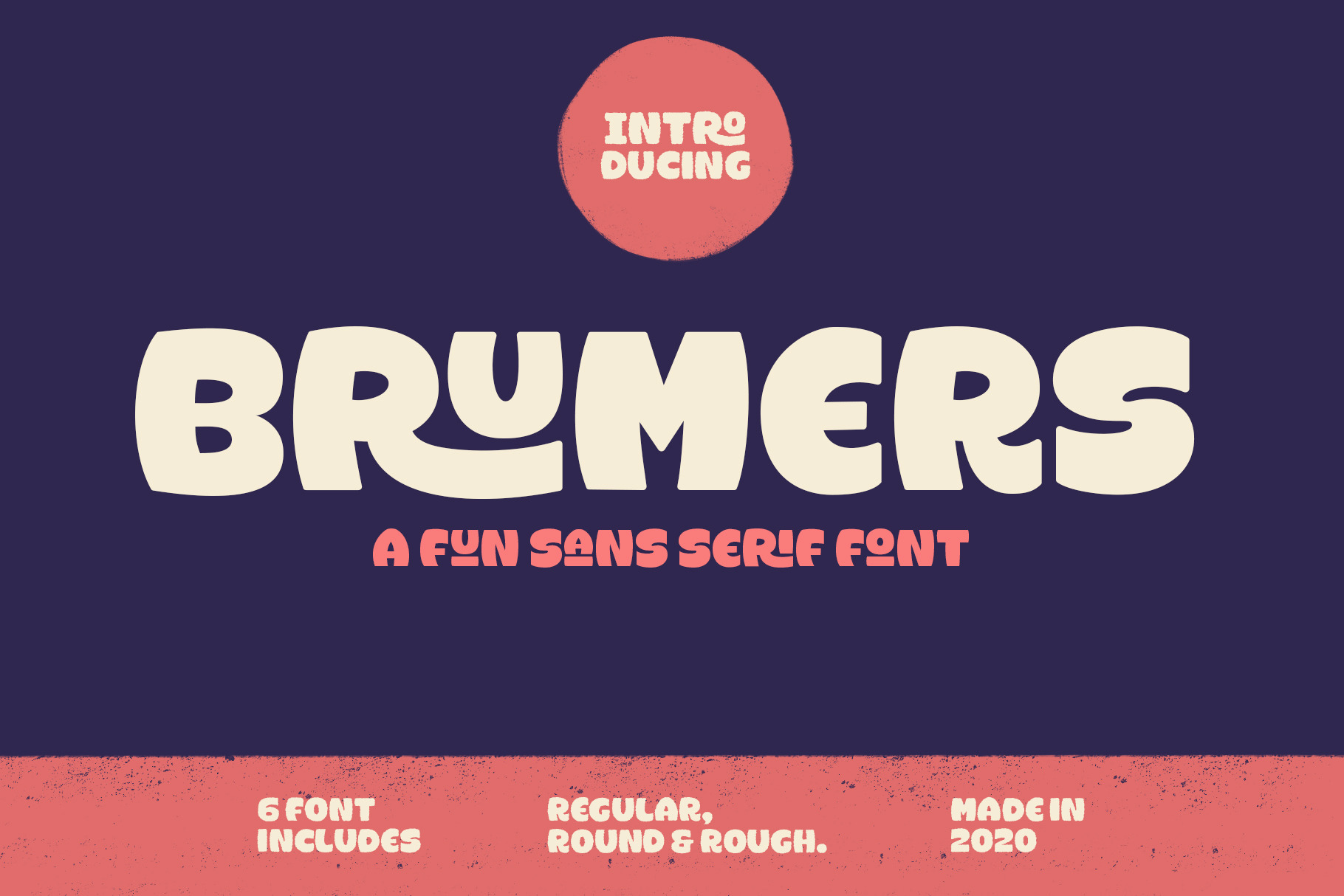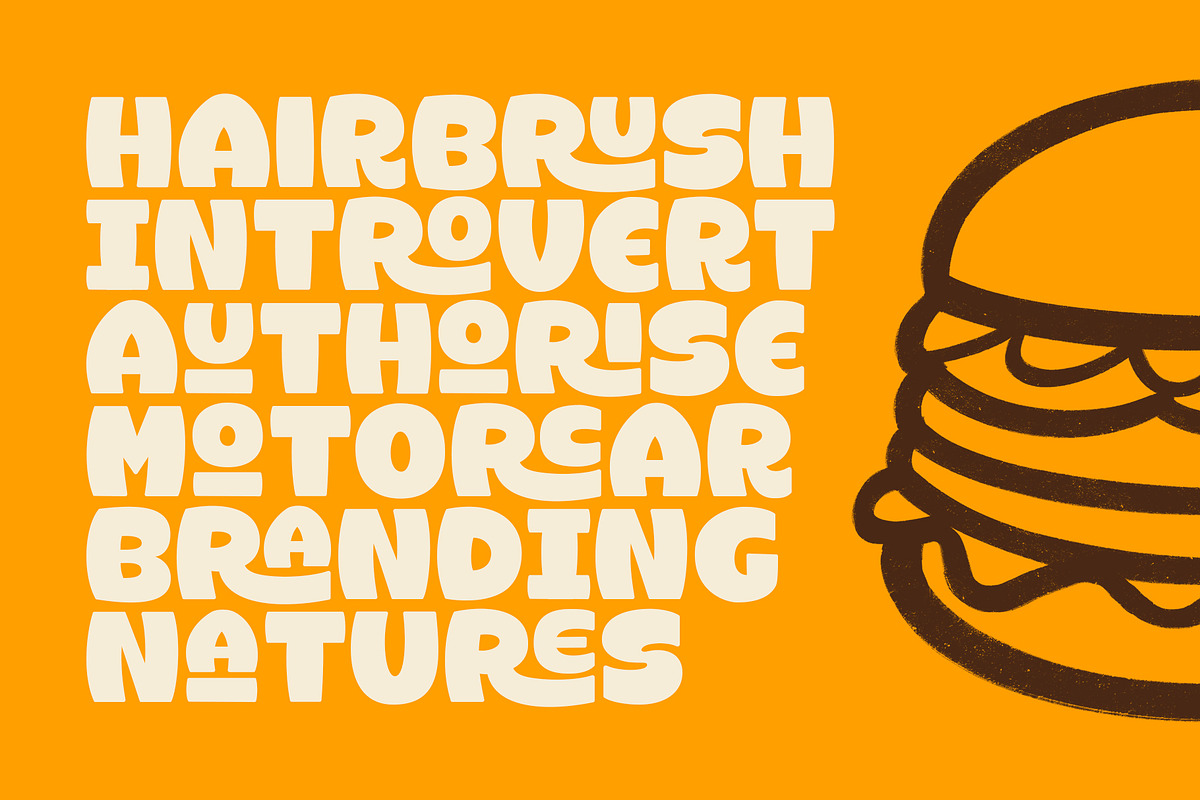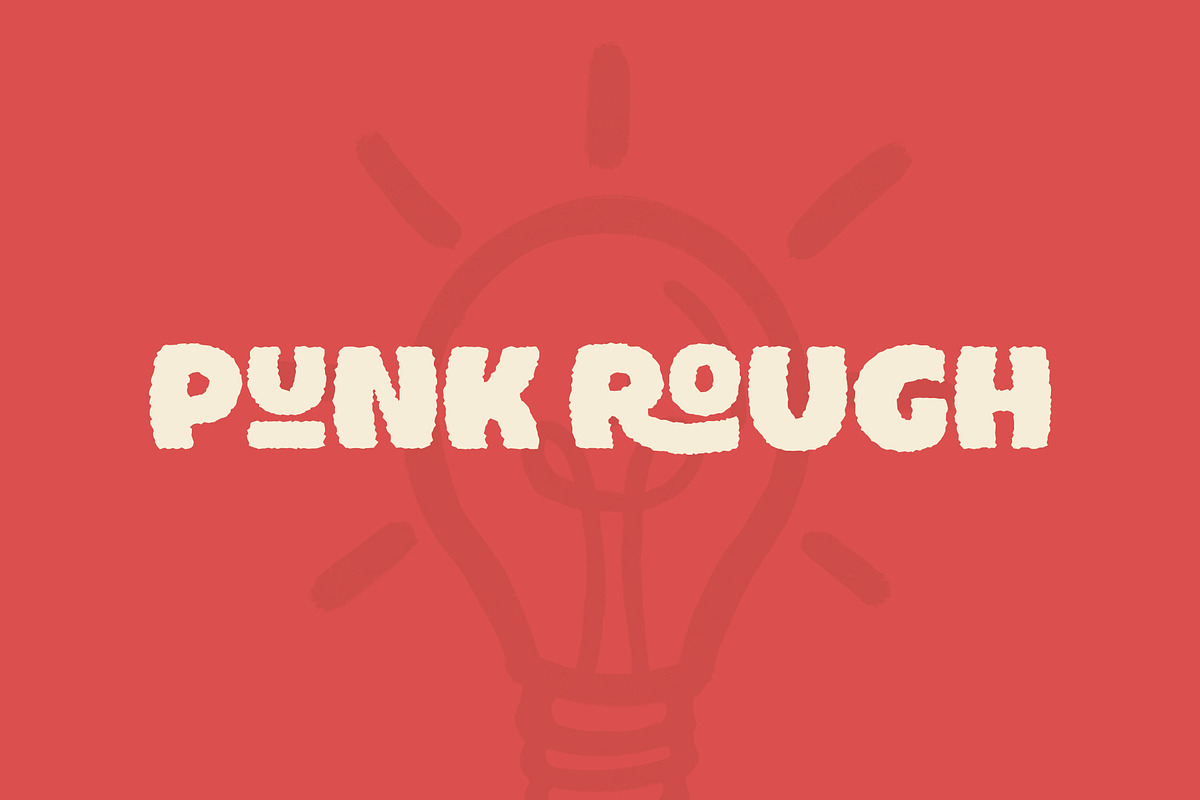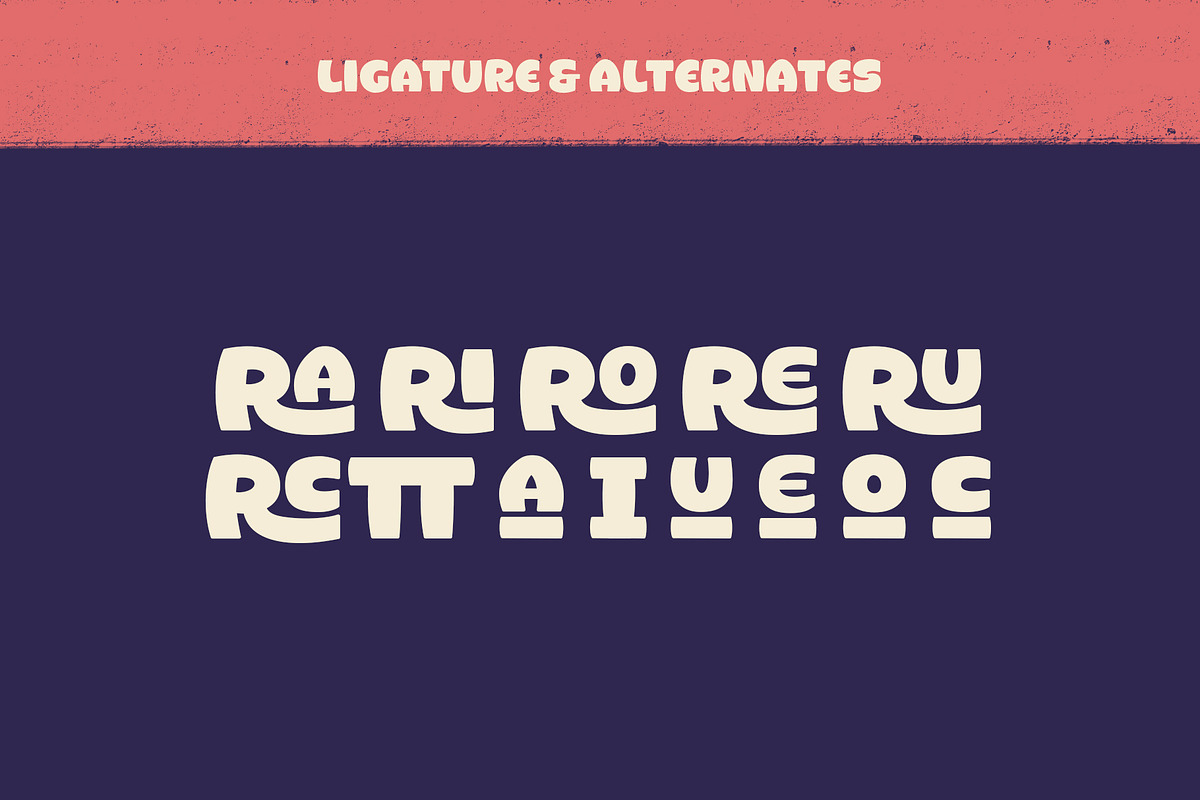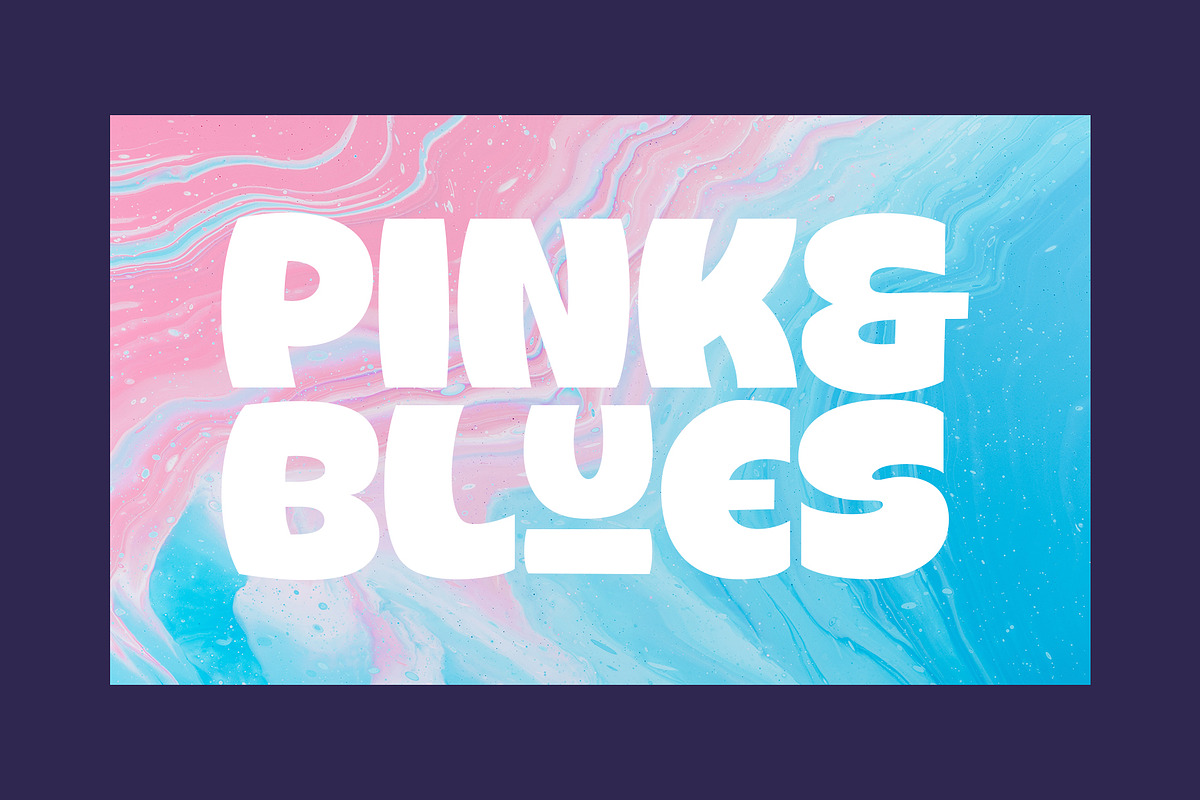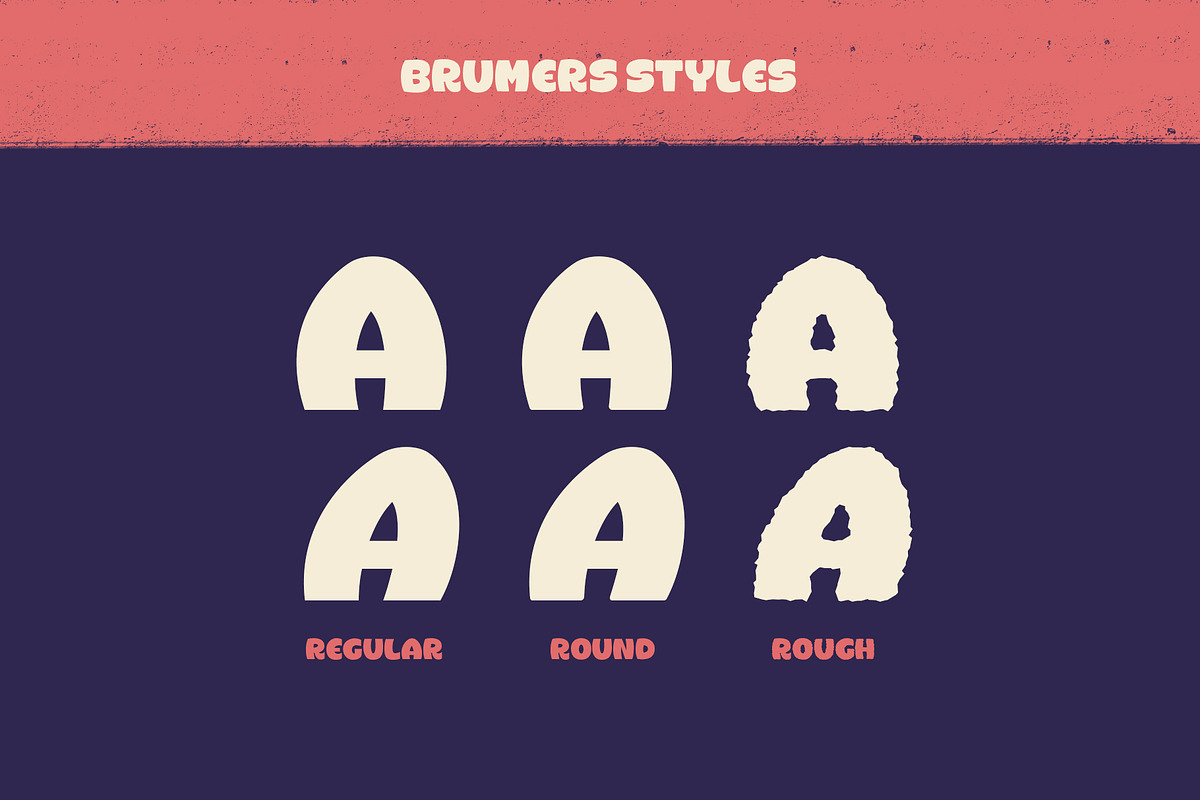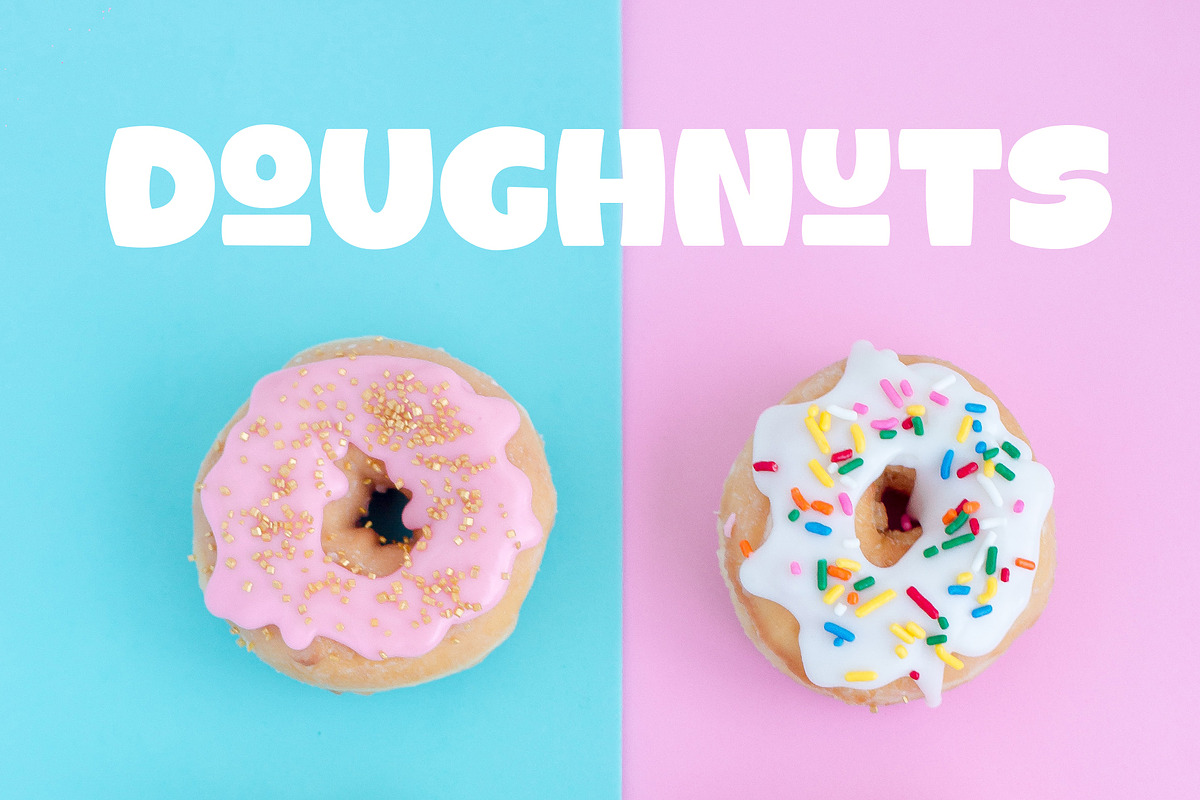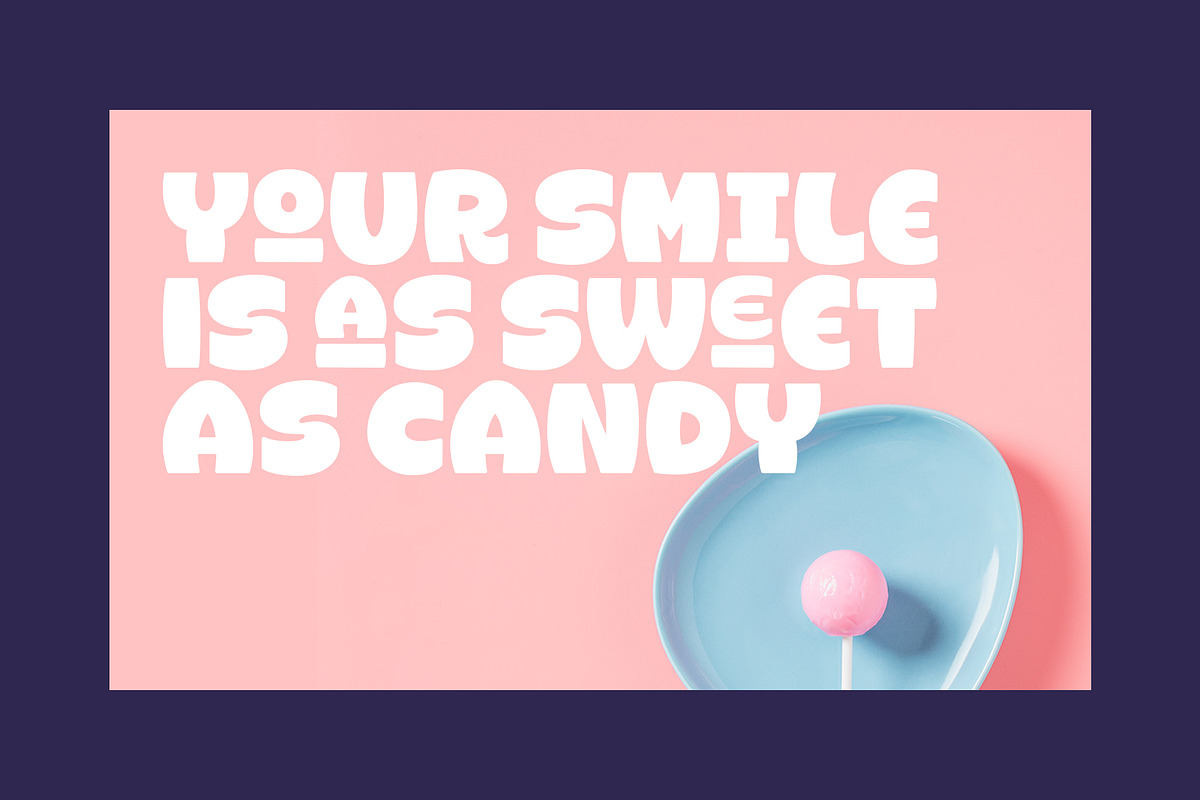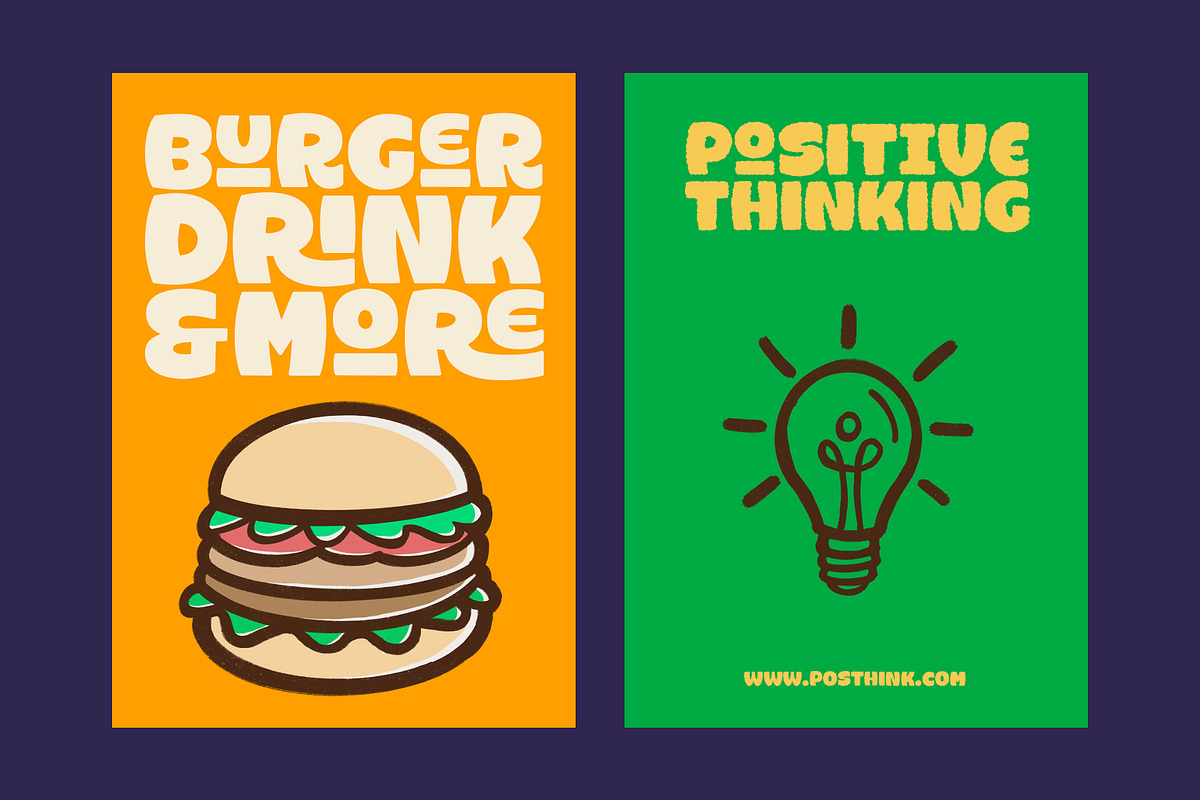
Brumers Font
Brumers is a fun sans serif font. Inspired by the curves of a bear. The basic concept is actually hand-drawn. Then, I developed and improved it in the next process. It comes in six styles, which makes it easy to choose according to the project you are working on. Brumers is perfect for headlines, branding, and many more.
- Number & punctuation symbols
- Stylistic Sets
- International characters (Multilingual)